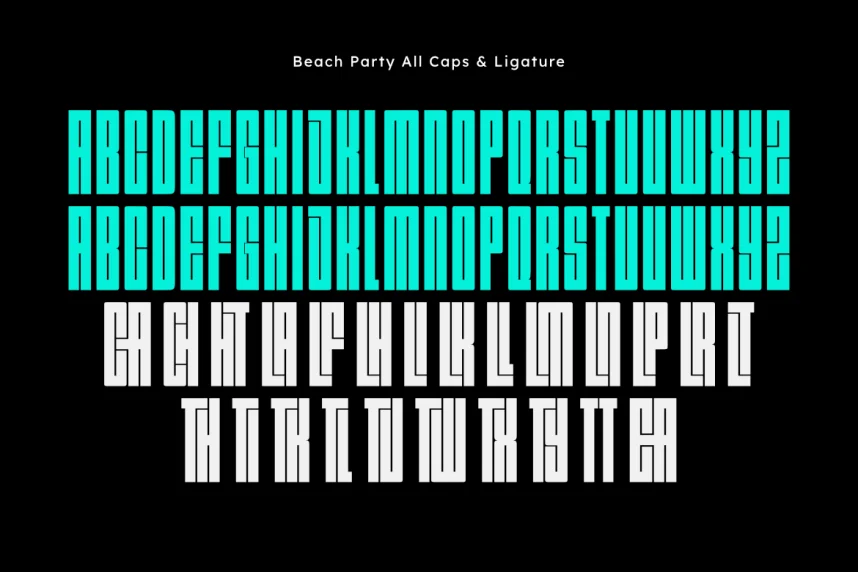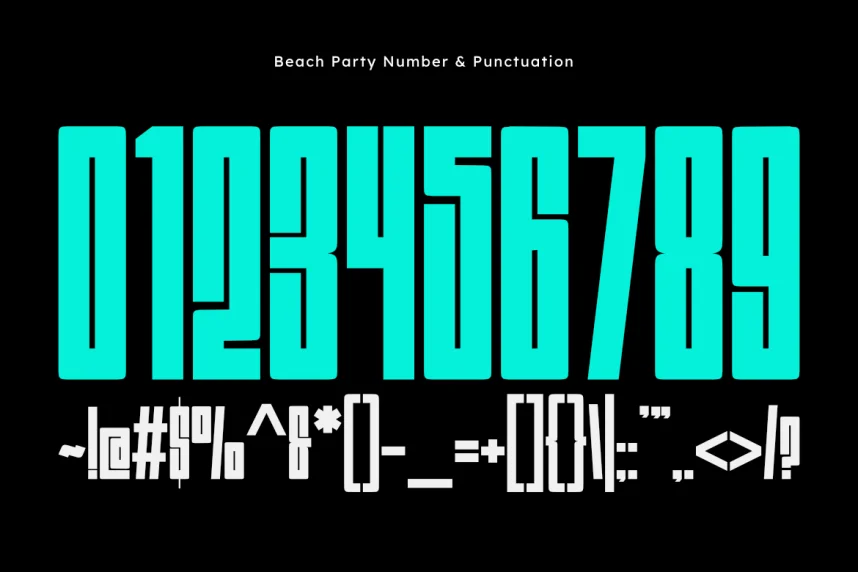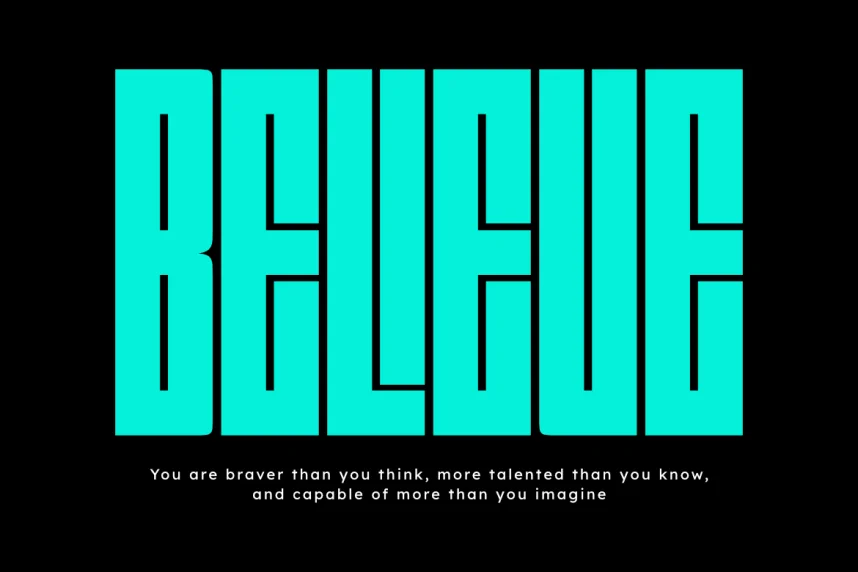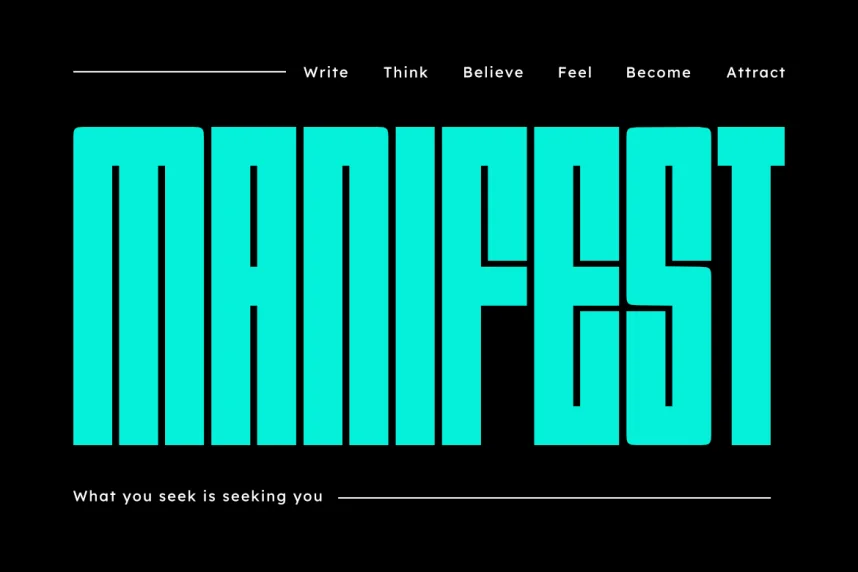
Beach Party Font is a script typeface created to solve a common design issue: adding a relaxed, handwritten feel without harming readability. Designers often need informal lettering for social media posts, event flyers, and lifestyle branding where clean structure still matters across digital and print formats.
Beach Party Font uses connected script letterforms with smooth curves, rounded terminals, and consistent stroke weight. The characters follow a natural handwritten rhythm without heavy swashes, which helps maintain clarity at small and medium sizes. Its informal structure fits casual branding while remaining readable for short text blocks, headings, and promotional graphics.